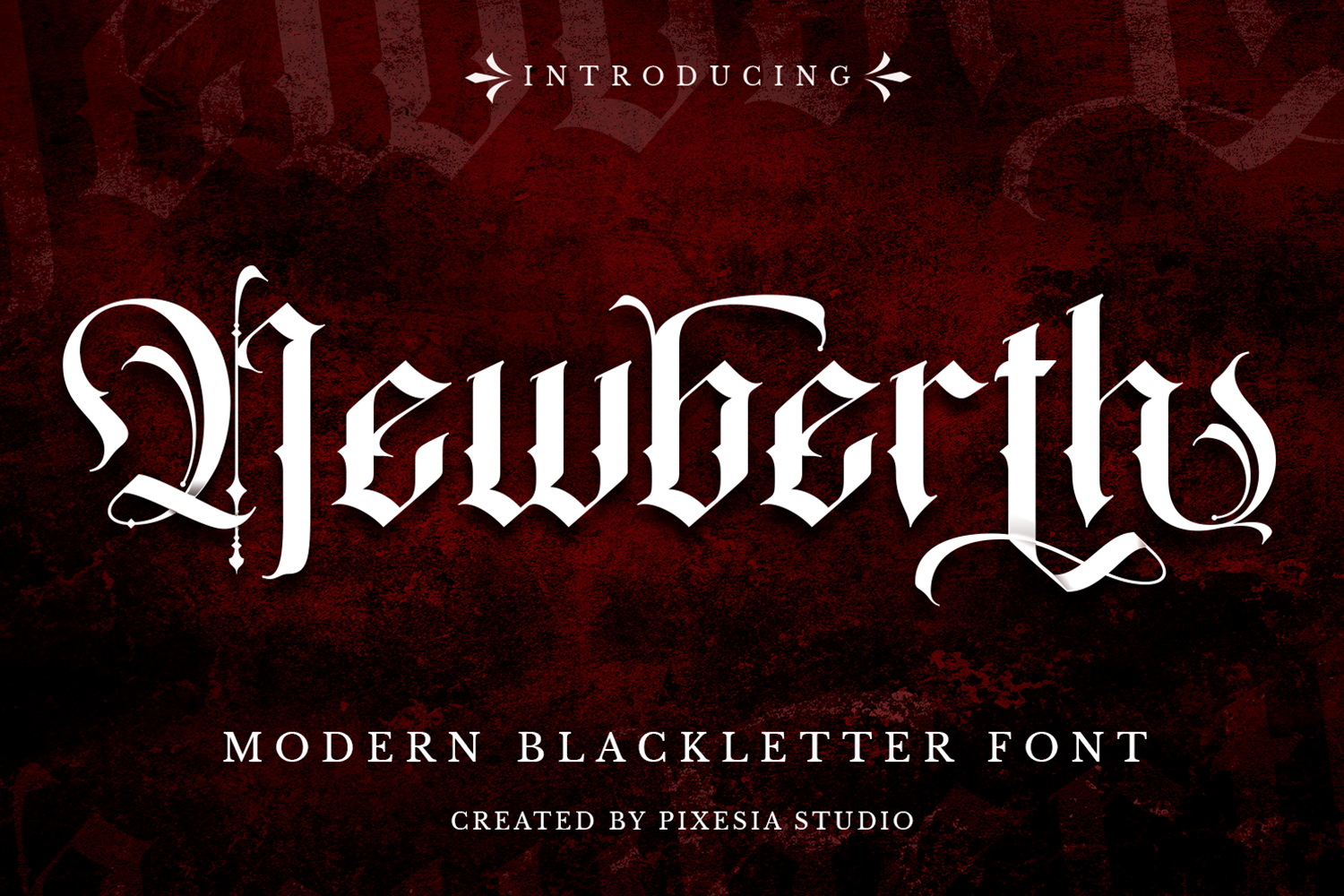
Newberth - Modern Blackletter Font
Introducing Newberth - Modern Blackletter Font
Newberth is a modern blackletter font inspired by modern aesthetics which immersed with a fierce and elegant touch. It provides more possibilities and chances to cradr a design with a strong, bold, and aesthetic vibe.
Newberth suits perfectly in the use of any masculine or elegant occasion. Newberth is better used for fashion product packaging, clothing labels , or any projects seeking for a touch of fierce, bold and strong masculine font.